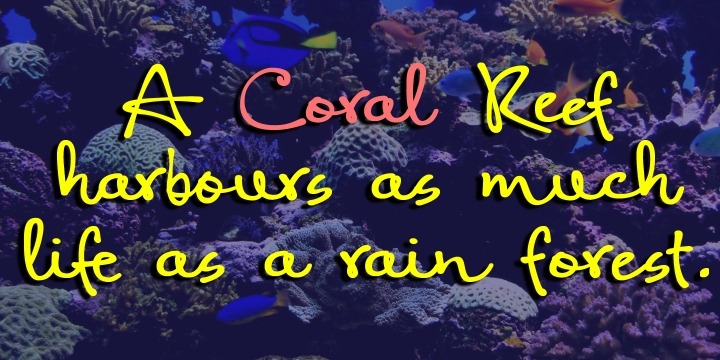
Coral Pro
Coral Pro is a relaxed and very readable script font. Based on the earlier Coral script. It has been updated, and now has all the features usually included in a fully professional font. Language support includes all European character sets.
Coral Pro Black is a bolder script than the original Coral, and has an in-your-face, clear and casual look. It's great used for anything from 'schoolgirl diaries? to fashion media.